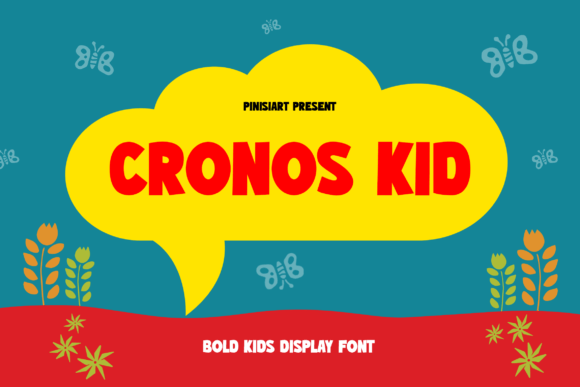
Get ready to unleash your creativity and leave an everlasting impression with Cronos Kid Font, the ultimate display font designed to make your words dance off the screen! This bold and playful font is a perfect fit for pop culture enthusiasts, game designers, event organizers, educators, and anyone looking to add a touch of whimsy to their projects. Let Cronos Kid take you on an unforgettable typographic adventure!
**Dive into the Realm of Playful Typography**
With its captivating shapes and bold strokes, Cronos Kid Font instantly grabs attention and leaves a lasting impact. Picture your words adorned with this vibrant font, commanding attention in book covers, online games, posters for teenage events, school supplies, and more. Let your imagination run wild as you explore the endless possibilities that await you with Cronos Kid Font.
**Make Your Words Pop with Personality**
Cronos Kid Font is more than just a collection of letters; it's a gateway to a world of captivating storytelling. Its unique design brings life to your words, making them leap off the page and into the hearts of your audience. Whether you're creating book covers, posters, movie titles, or social media posts, Cronos Kid Font will infuse your creations with an irresistible charm that's sure to leave a lasting impression.
**Craft a Typographic Masterpiece**
With Cronos Kid Font at your fingertips, you'll effortlessly elevate your designs to new heights. Whether you're a seasoned designer or just starting, this font will empower you to create typographic masterpieces that captivate and inspire. Its versatility knows no bounds, making it the perfect choice for a wide range of projects. Unleash your creativity and let Cronos Kid Font guide you towards typographic brilliance.
**A Treasure Trove of Creative Possibilities**
The applications of Cronos Kid Font are as boundless as your imagination. Picture your words gracing the covers of pop culture books, calling out from posters advertising teenage events, and adding a touch of whimsy to school supplies. This font is your creative compass, leading you to a world where words come alive and stories unfold with every stroke. Make Cronos Kid Font your font of choice and embark on a typographic journey like never before!